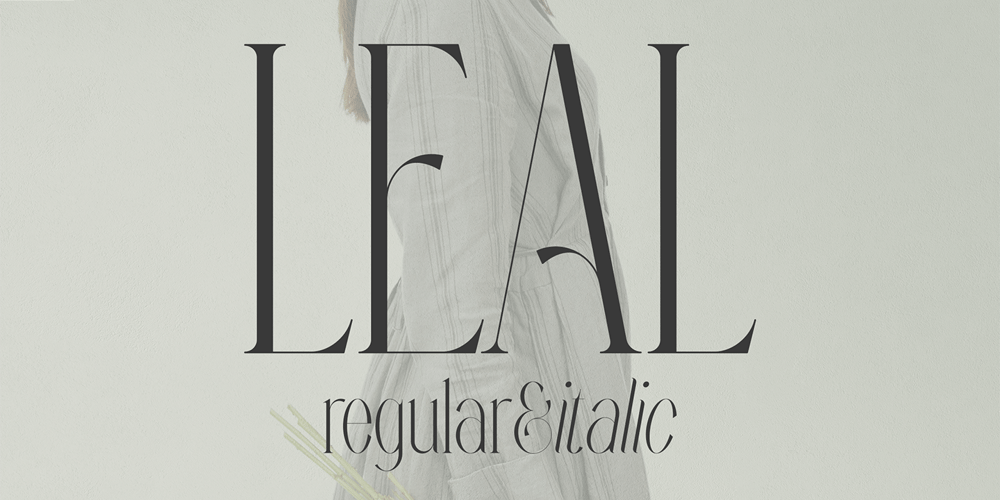
Leal Font Family was designed by Vladimir Fedotov, Plamen Petrov and published by VP Creative Shop. Leal contains 2 styles and family package options. Introducing Leal serif typeface – regular and italic fontsLeal is long and retro typeface loaded with 2 fonts, alternate glyphs and multilingual support. It’s a very versatile font that works great in large and small sizes.This font is perfect for branding projects, home-ware designs, product packaging, magazine headers – or simply as a stylish text overlay to any background image.FEATURES Uppercase, lowercase, numeral, punctuation & Symbol regular italic alternate glyphs Multilingual support No special software is required to type out the standard characters of the Typeface. Canva friendly How to access alternate glyphs?To access alternate glyphs in Adobe InDesign or Illustrator, choose Window Type & Tables GlyphsIn Photoshop, choose Window Glyphs. In the panel that opens, click the Show menu and choose Alternates for Selection. Double-click an alternate’s thumbnail to swap them out.Feel free to contact me if you have any questions!Mock ups and backgrounds used are not included.Thank you! Enjoy!